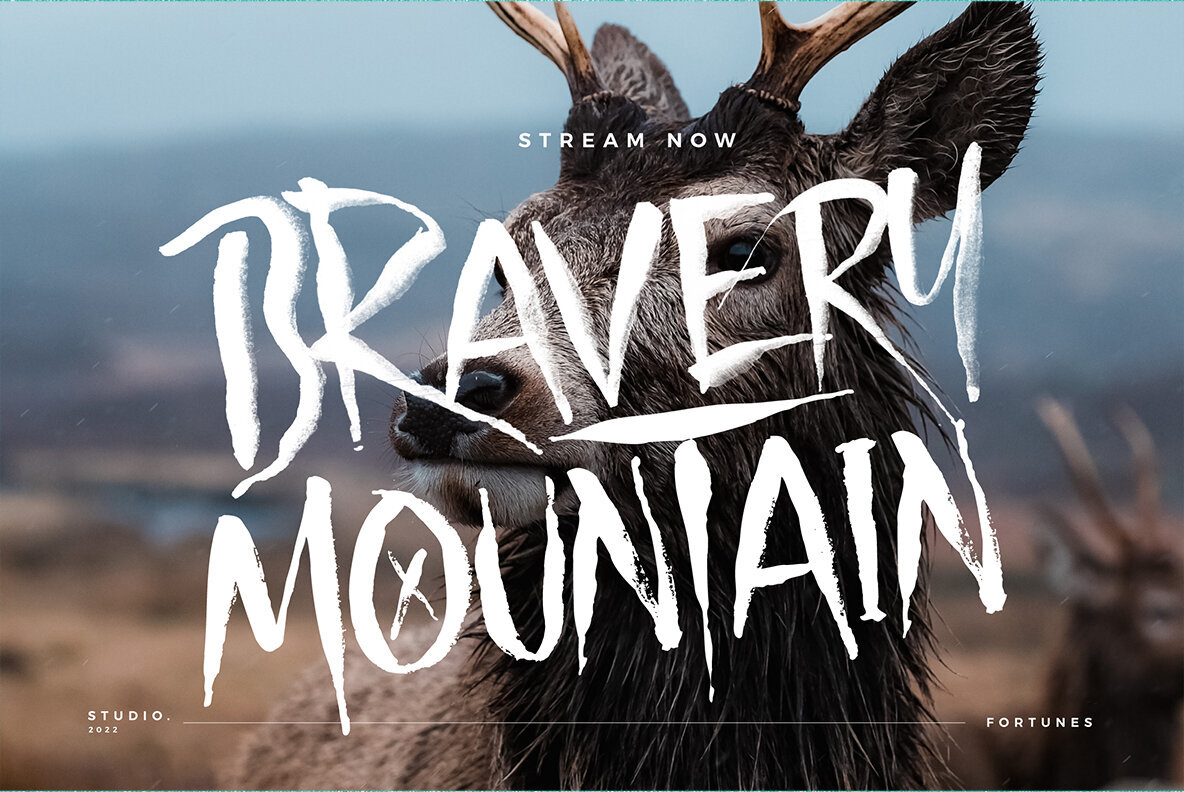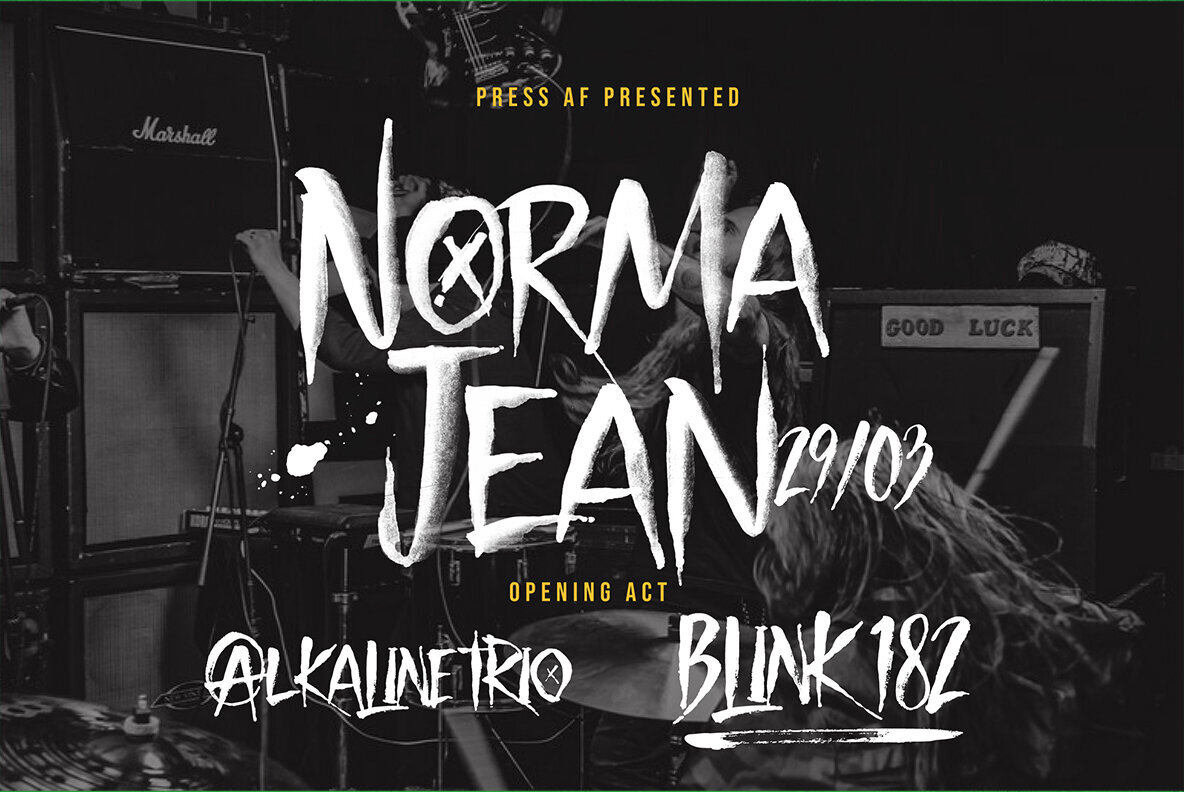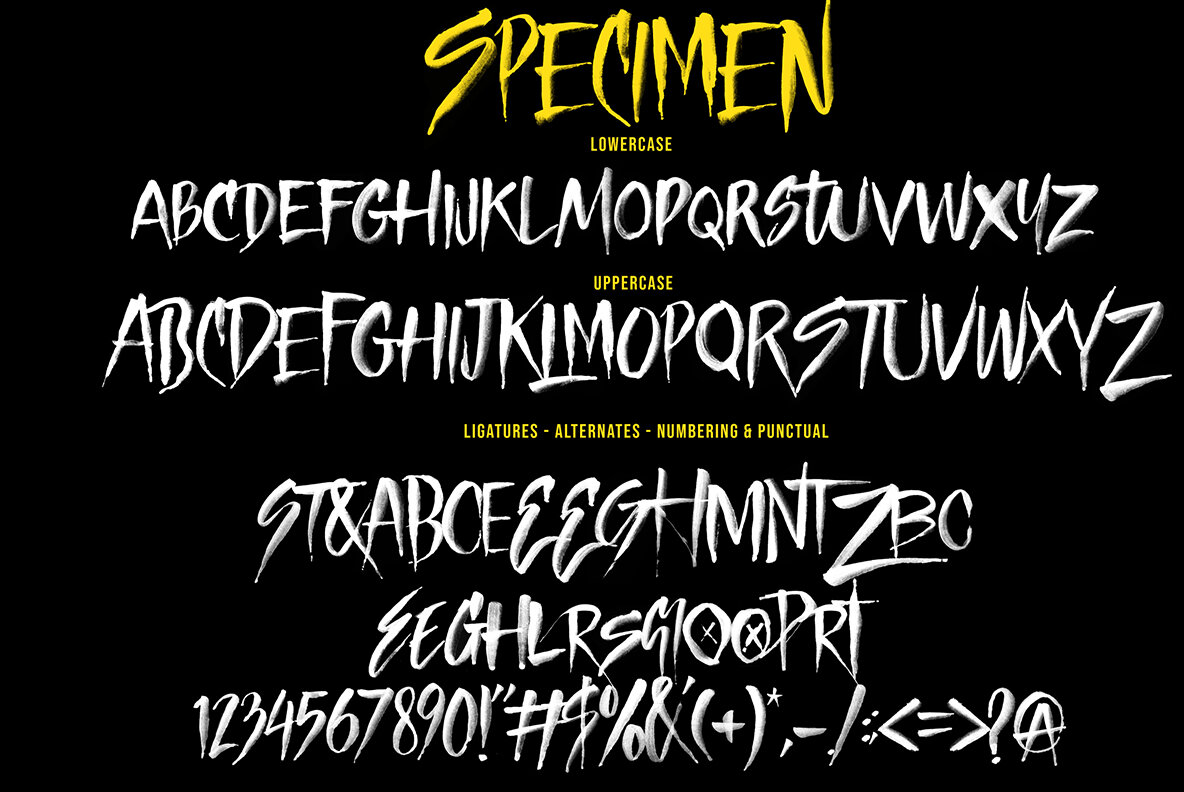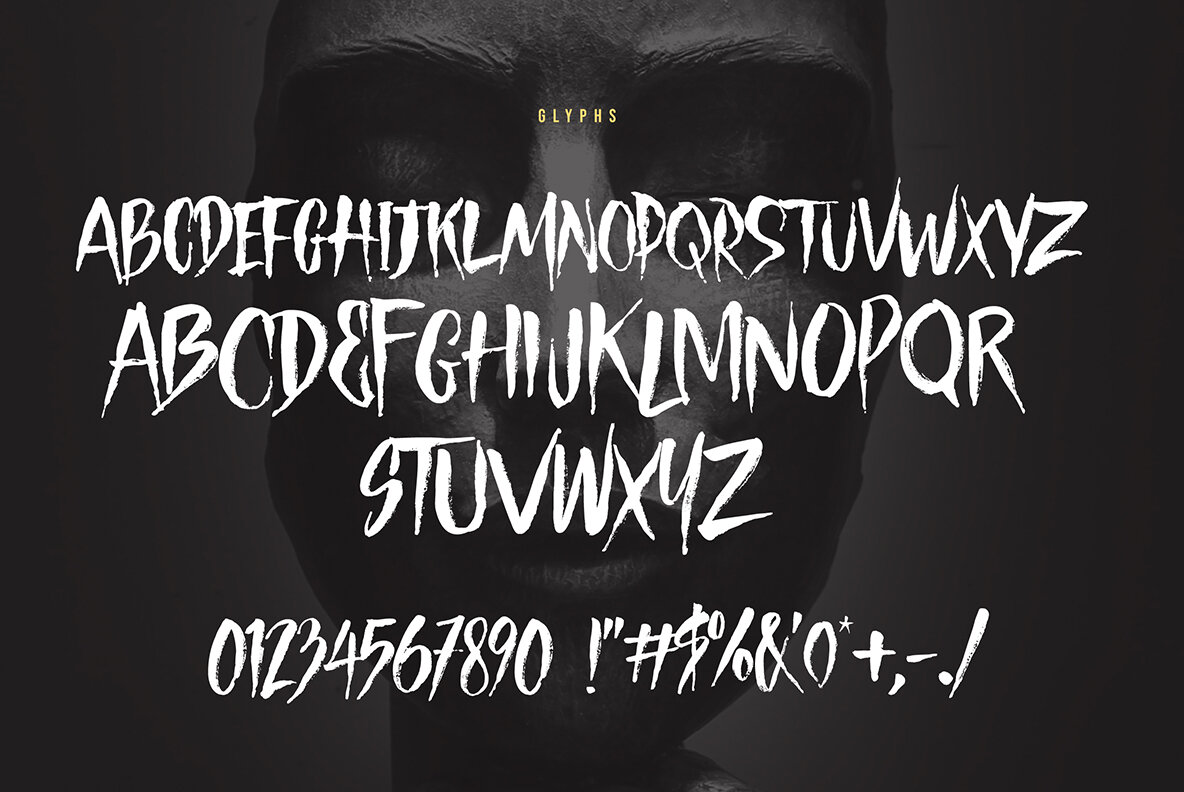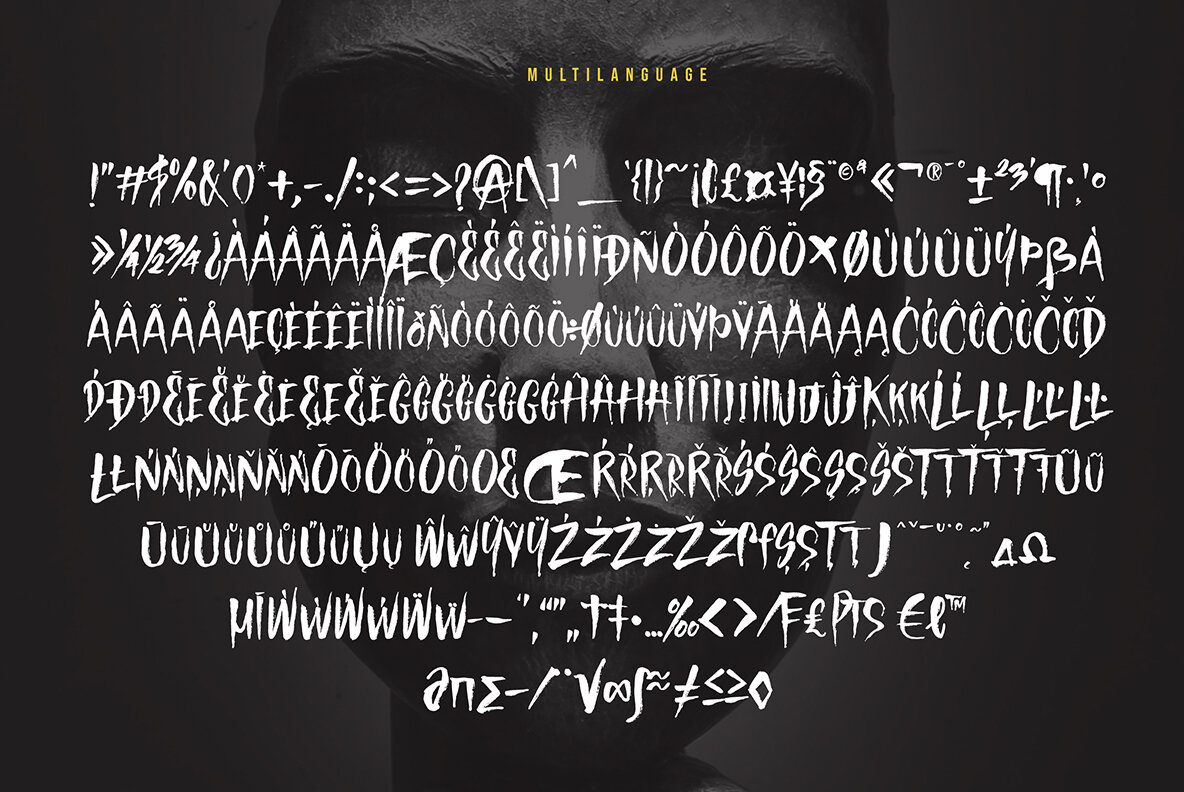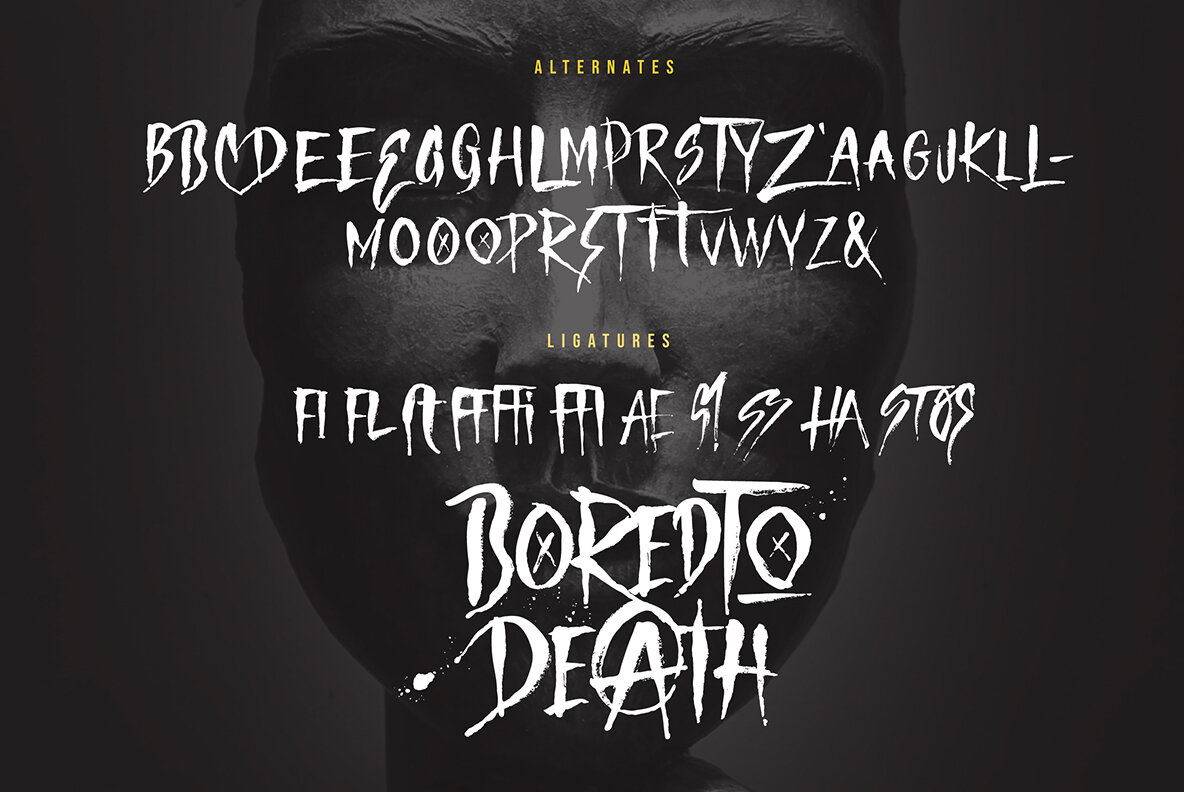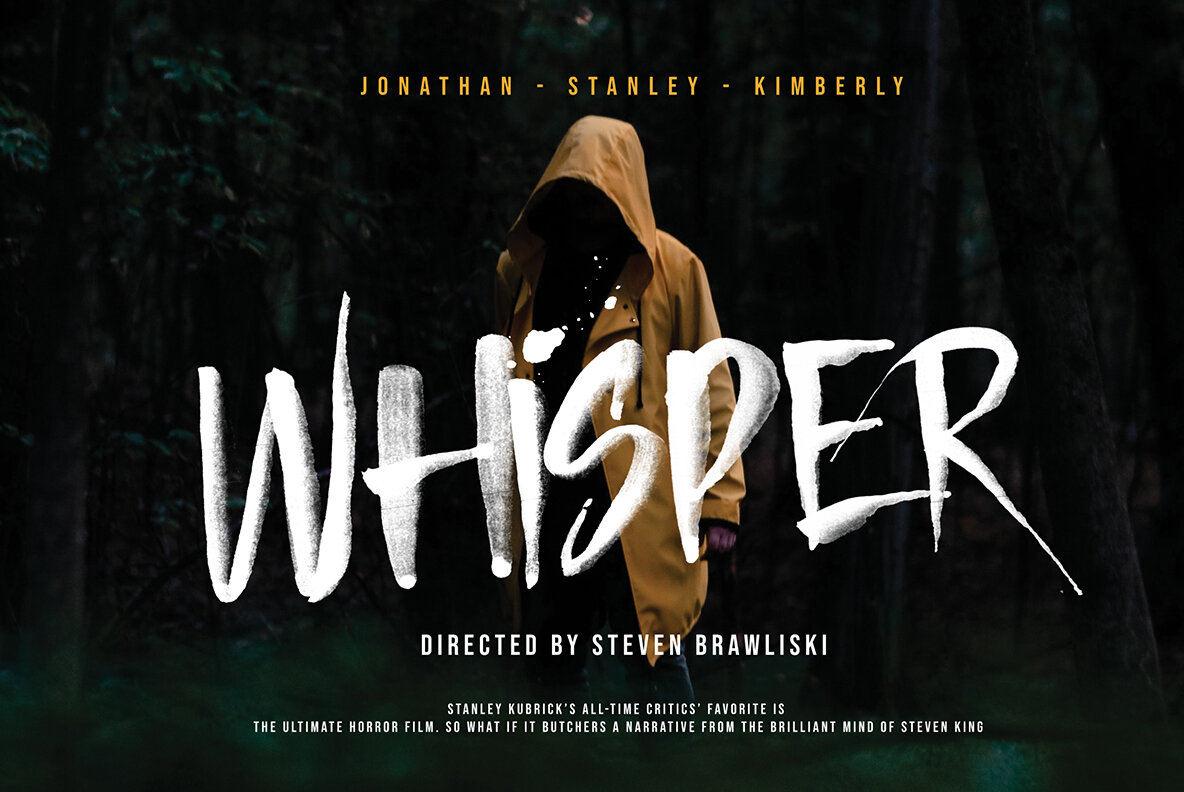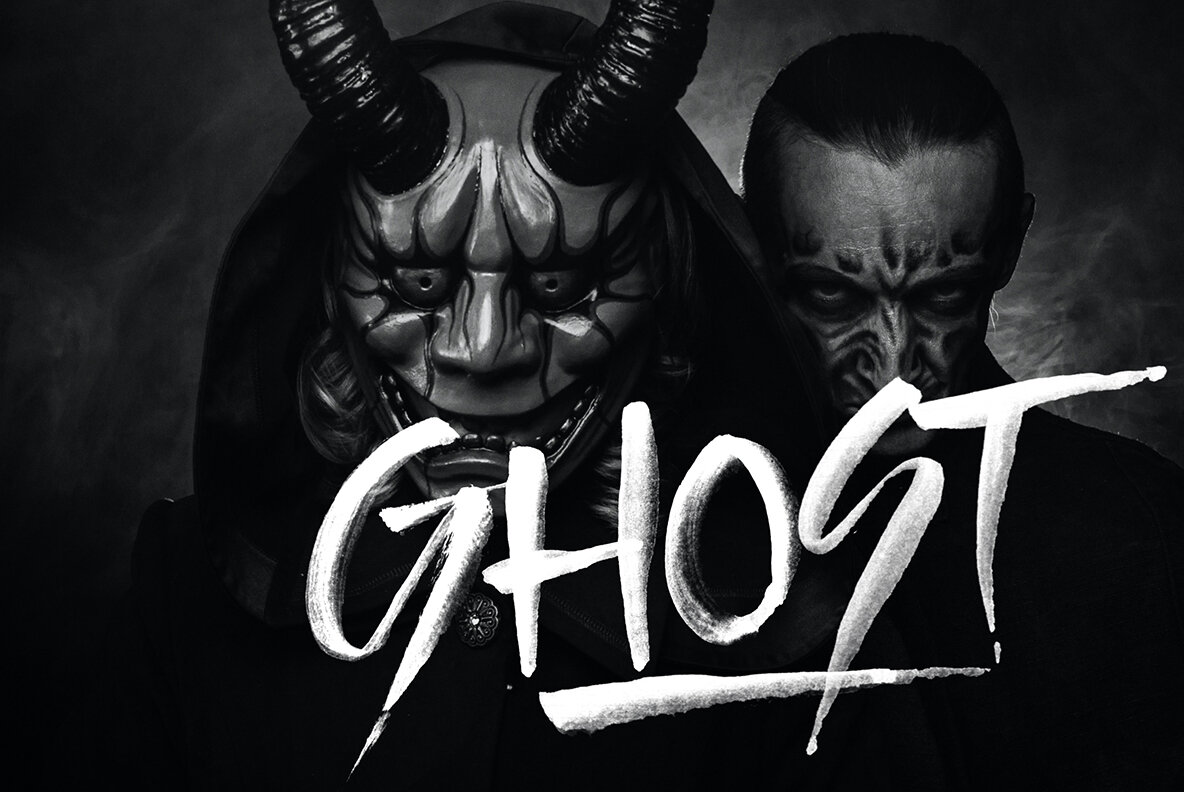
Bored To Death Font
The font was designed using the manual watercolor technique, taking inspiration from underground bands, metal music and a combination of horror movie titles, with its defiant shape, rough edges and unadulterated imperfections. and give a spooky, firm, horror impression.